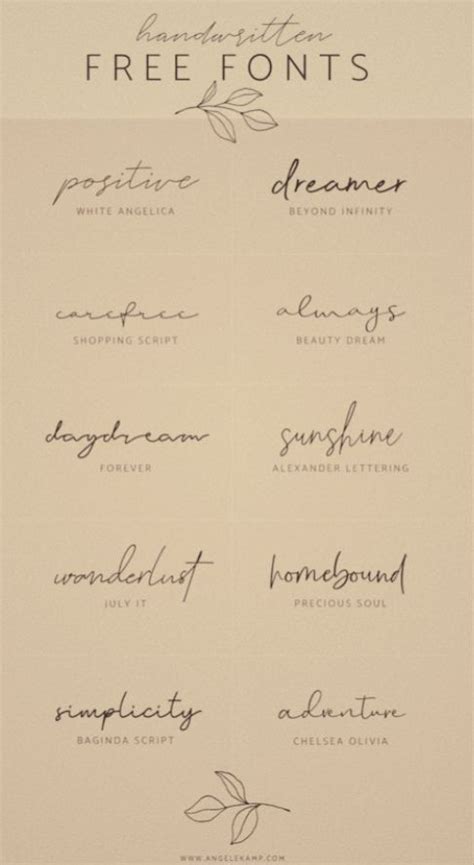
Tattoo Fonts Thin, Cute tattoo is a simple uniform stroke, thin line tattoo font. Complete family of 12 fonts:
Hero beam tattoo is a decorative vintage typeface, remastered for a modern performance. The thin, elegant lines of this handwritten font will not leave you indifferent. Rating & up & up. Its simple charm makes it a fun and modern choice.
Click to find the best 20 free fonts in the thin tattoo style. If you like stylish and polished tattoo fonts, give this script a try! Chika tattoo is best for all tatt. Tattoo fonts have managed to generate quite a big fuss among the tattoo lovers. The different is the thorn in every letter!